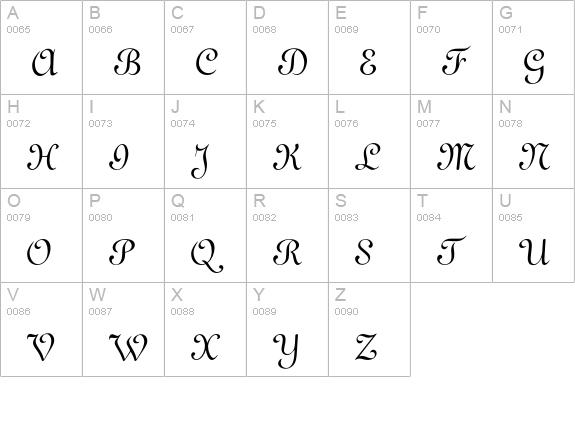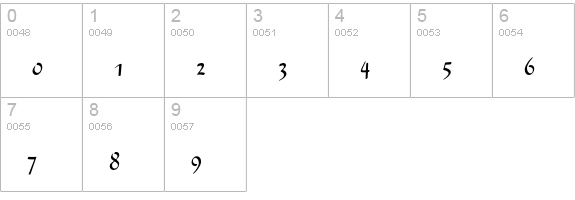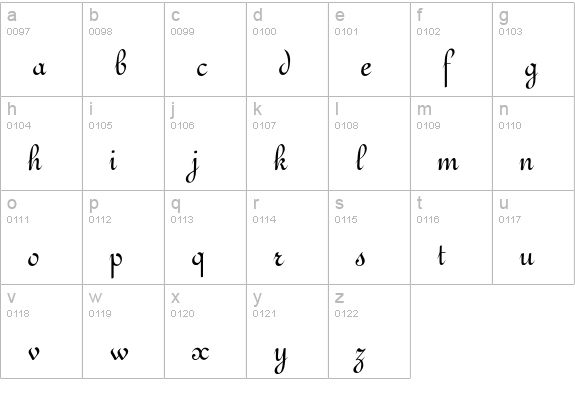
OPTITypoC-Upright Font Details
Introducing OPTITypoC-Upright font, a versatile and modern typeface designed to bring a touch of elegance to your projects. With its clean lines and timeless appeal, OPTITypoC-Upright is perfect for a wide range of applications, from branding and advertising to invitations and packaging. This font features a unique blend of classic and contemporary design elements, making it a truly eye-catching choice for any project. Its upright style lends a sense of sophistication and professionalism, while its sleek curves and sharp edges add a hint of modern flair. Whether you're designing a logo, creating a poster, or crafting a website, OPTITypoC-Upright is sure to make a statement. And the best part? It's completely free to download at FontsMarket.com, so you can start using this stunning font in your projects right away. Don't miss out on the opportunity to elevate your designs with the beauty and versatility of OPTITypoC-Upright font. Download it today and see the difference it can make in your work!